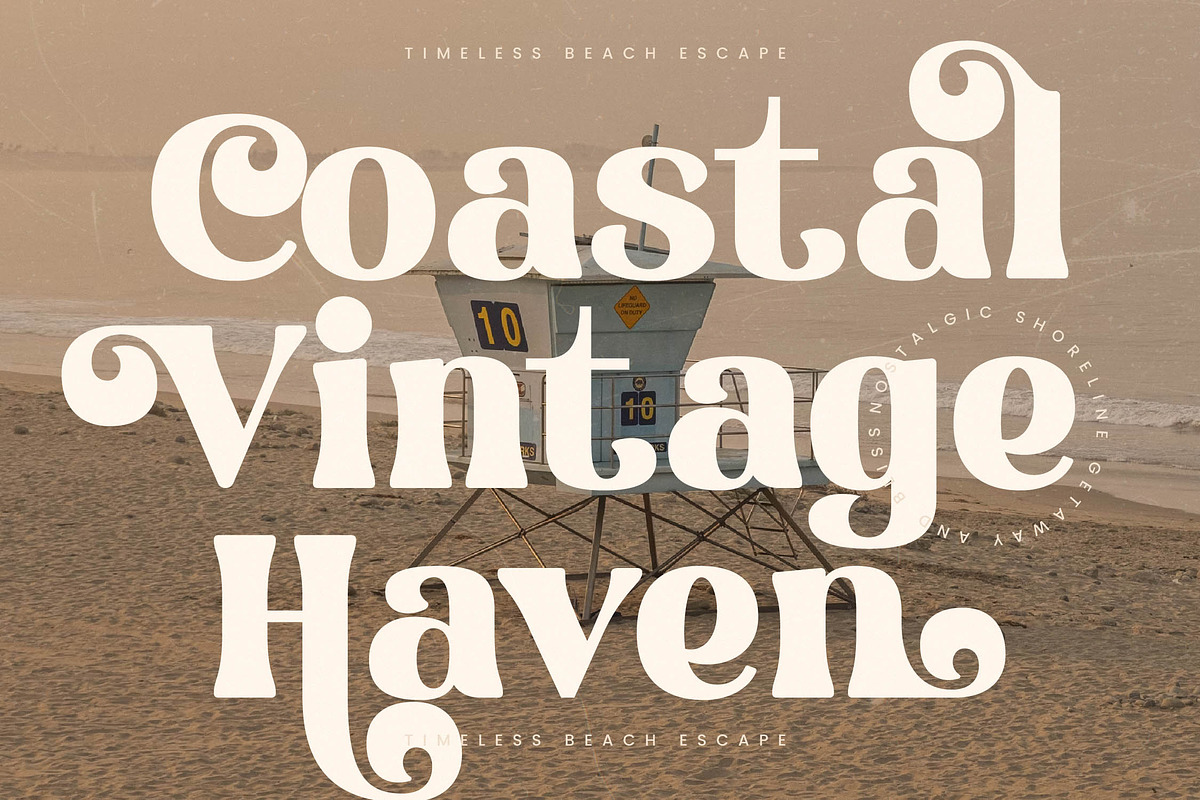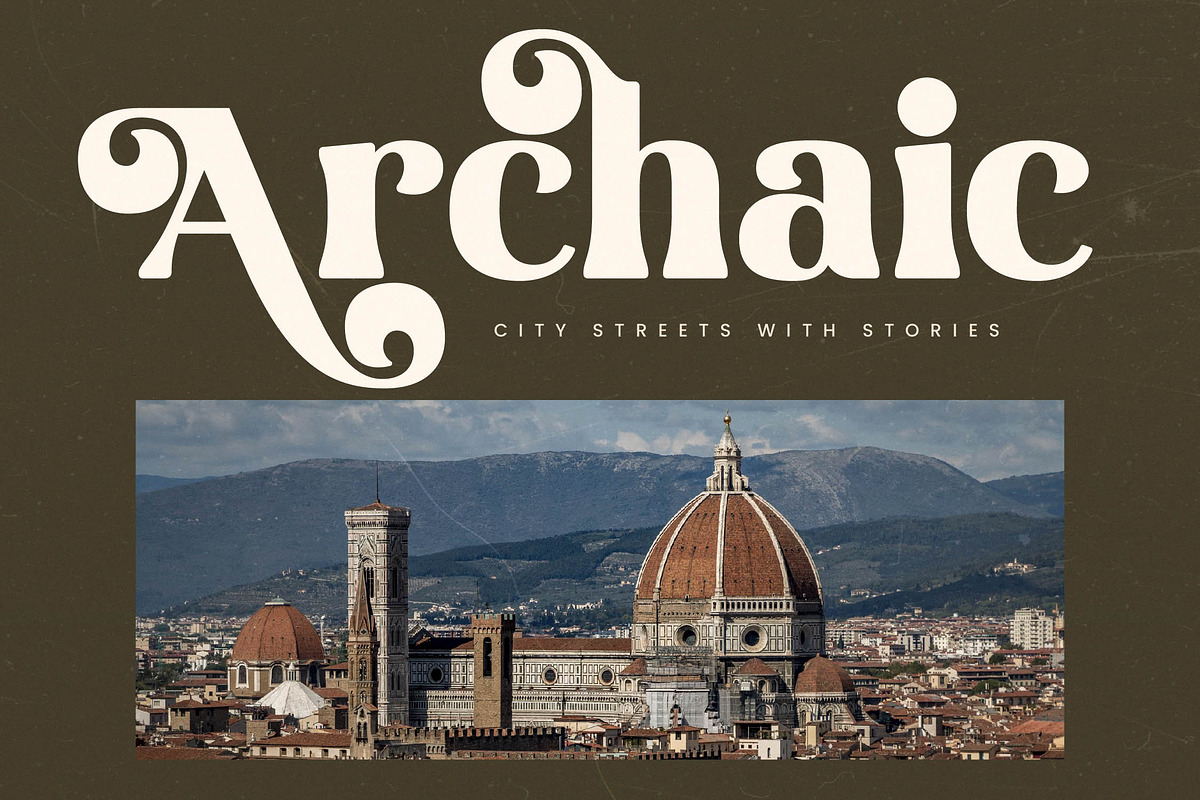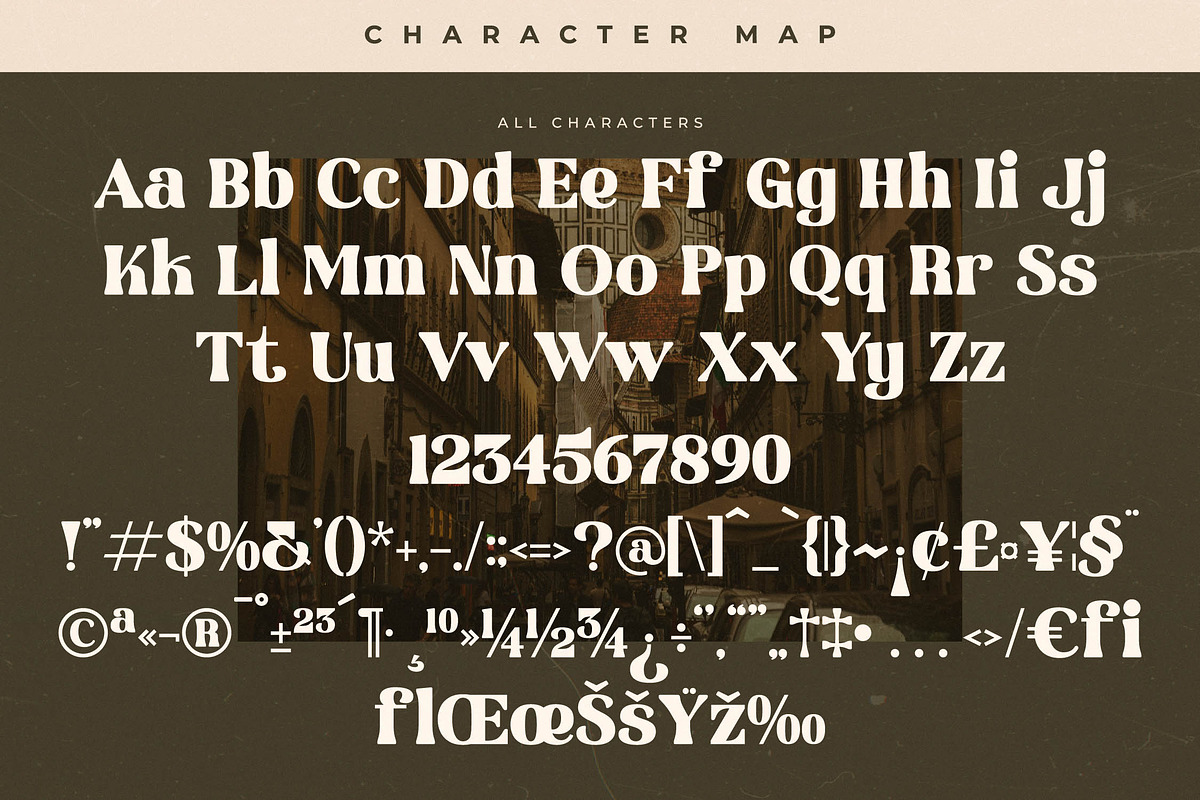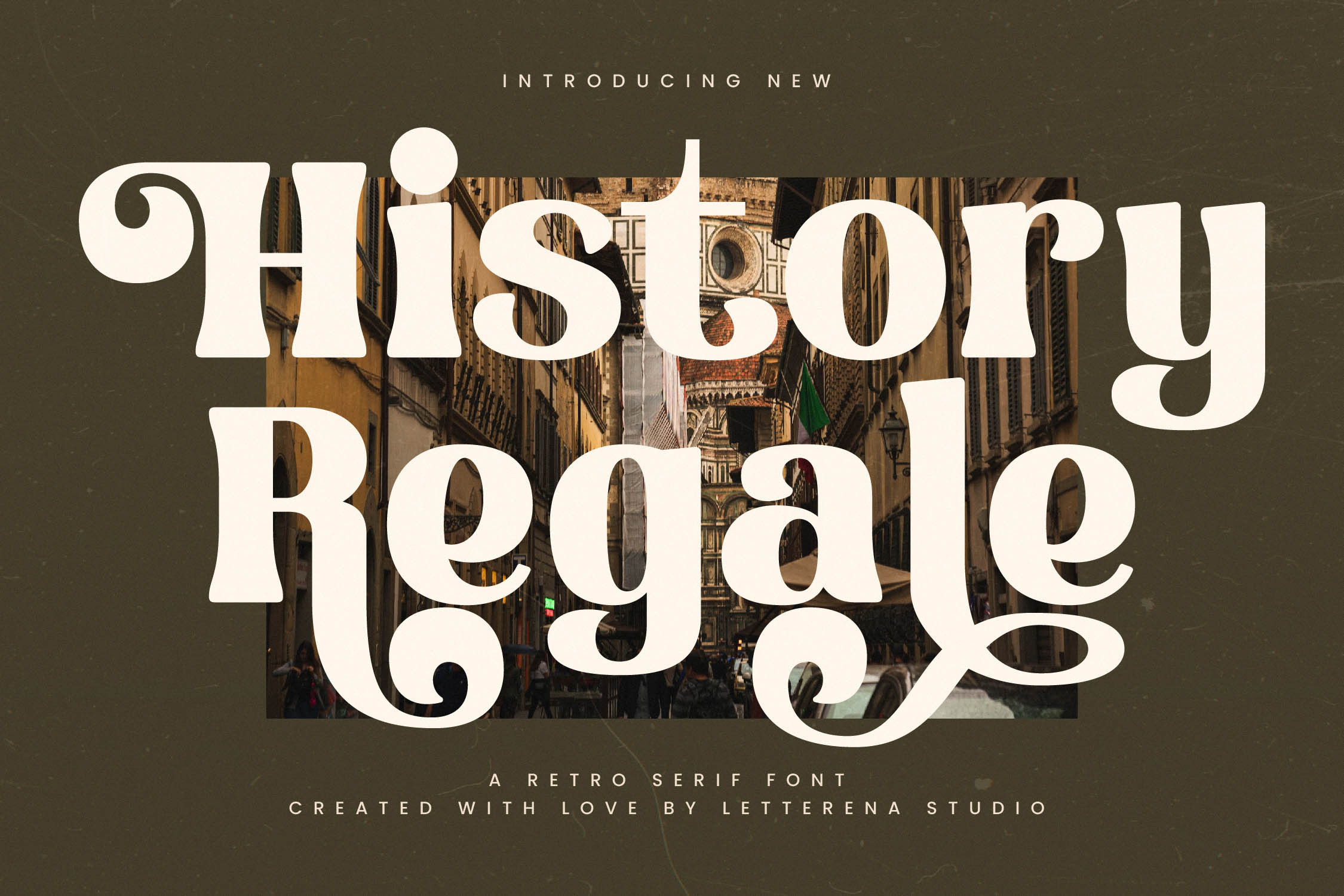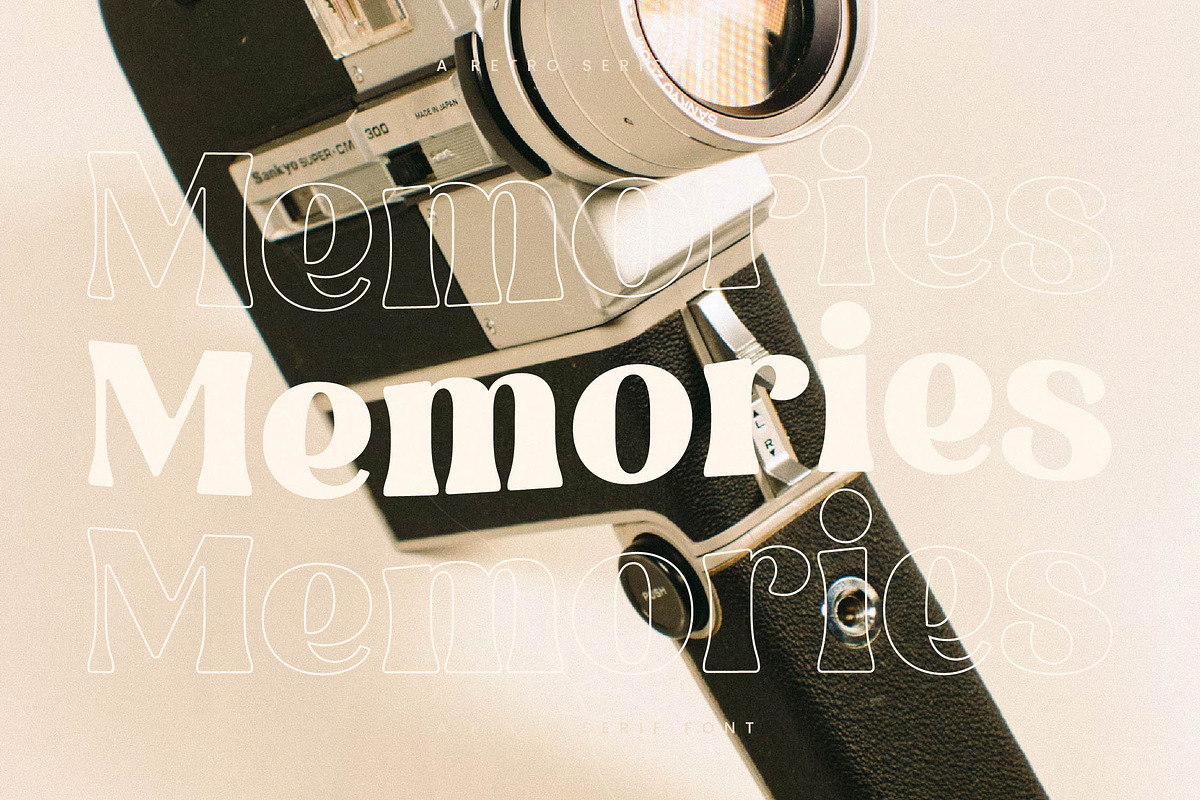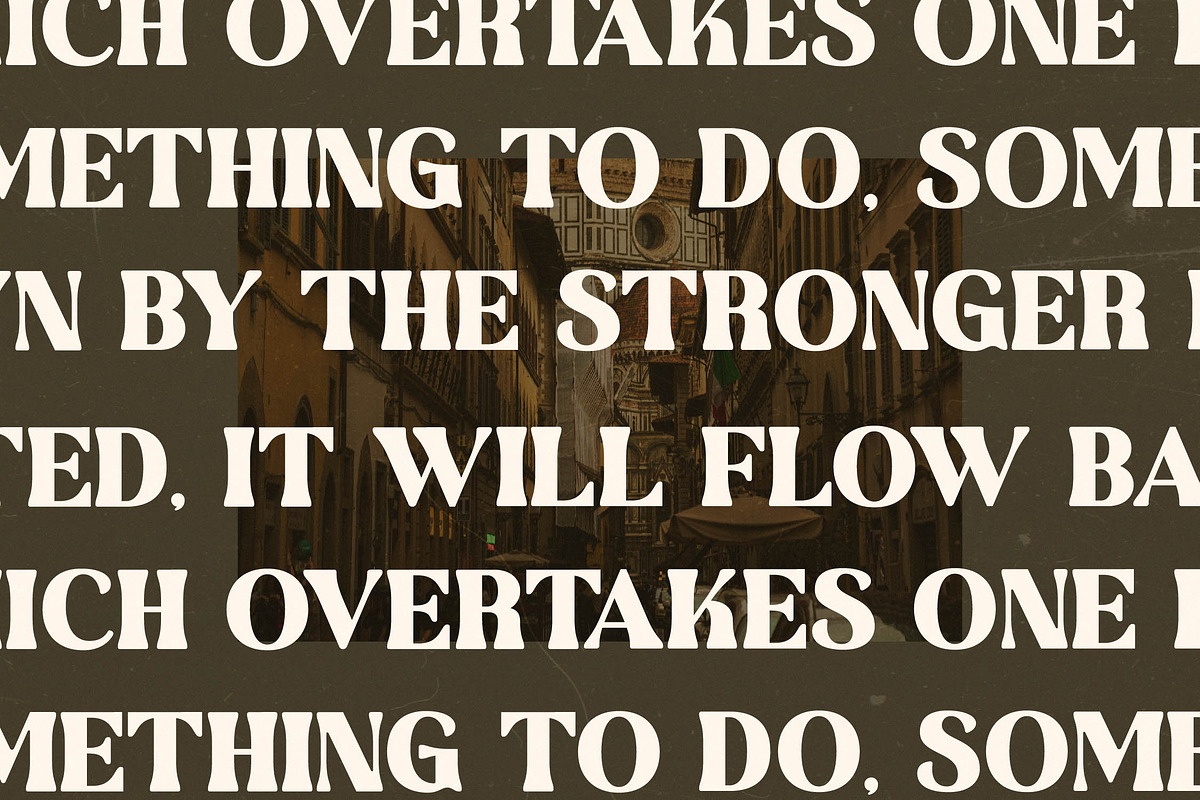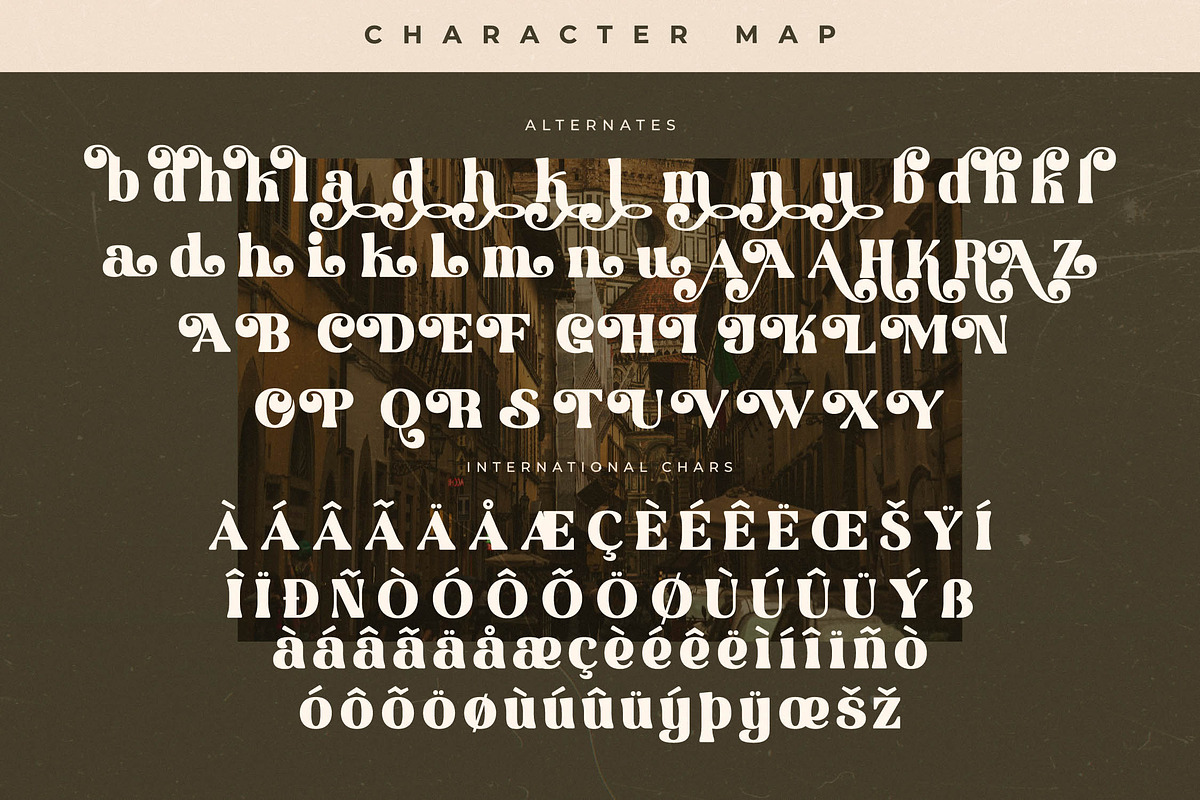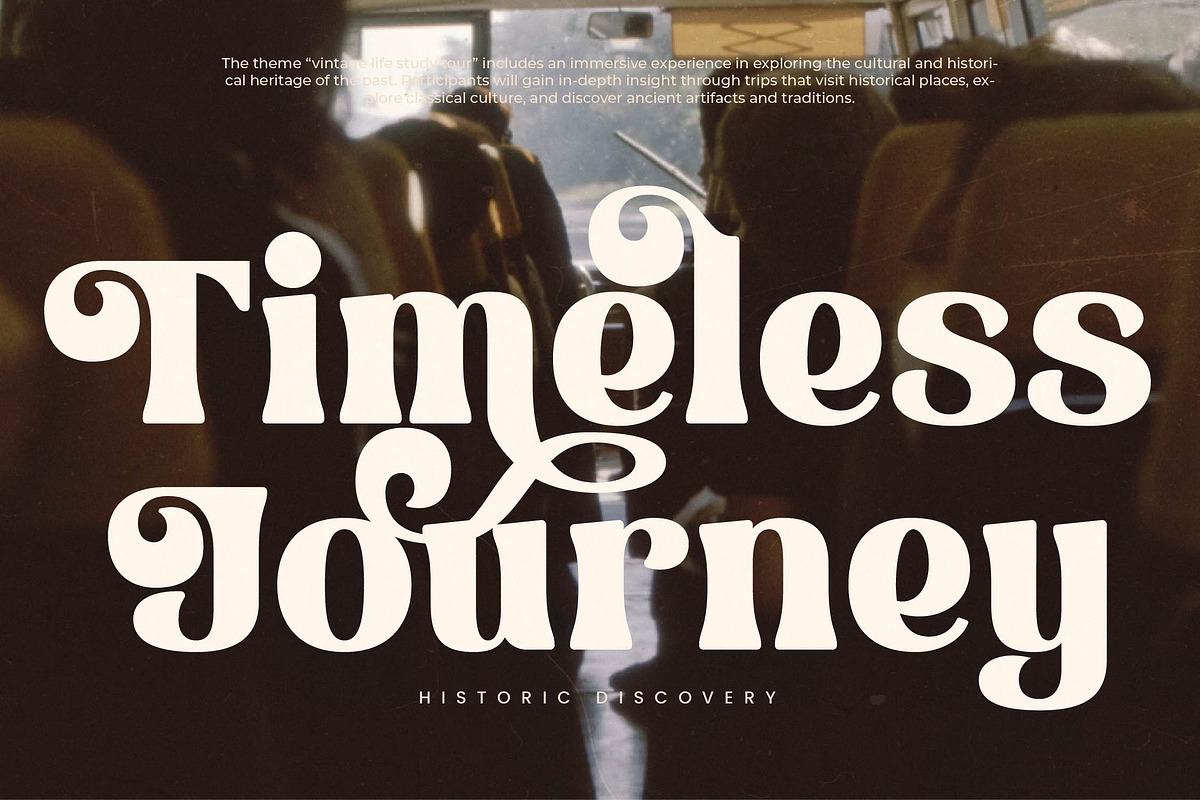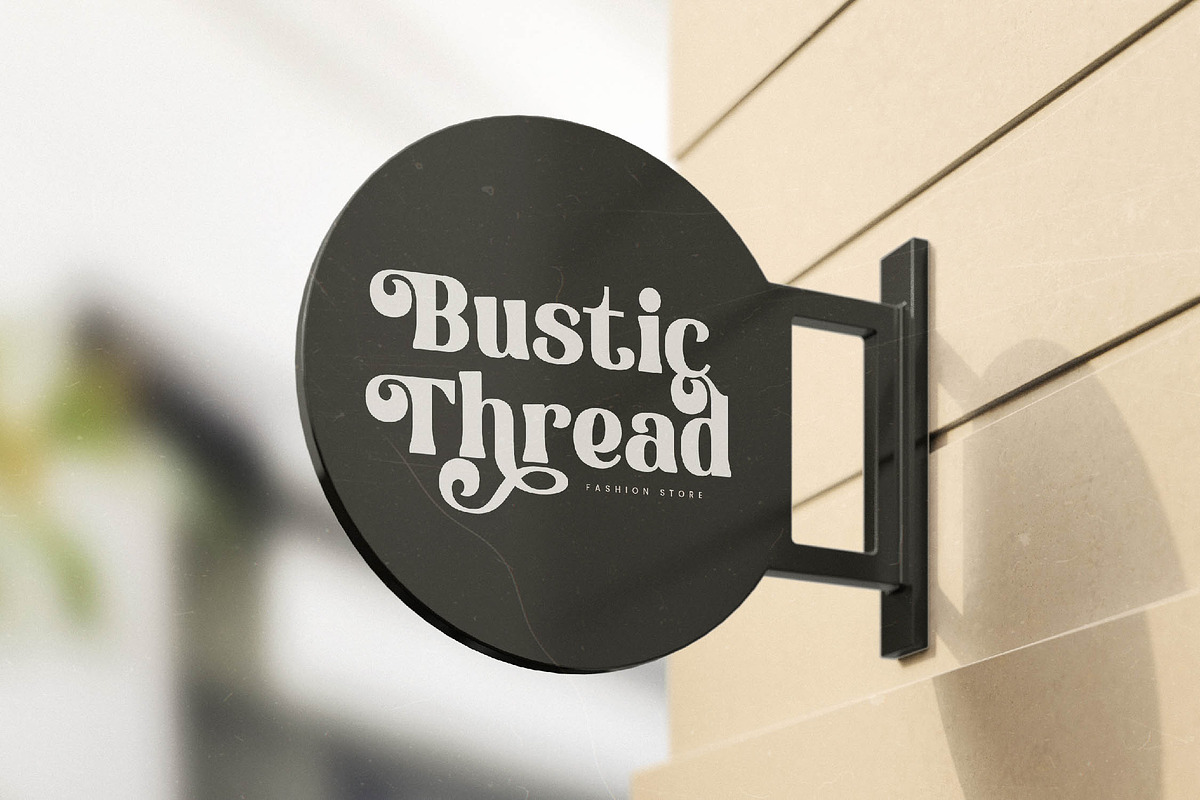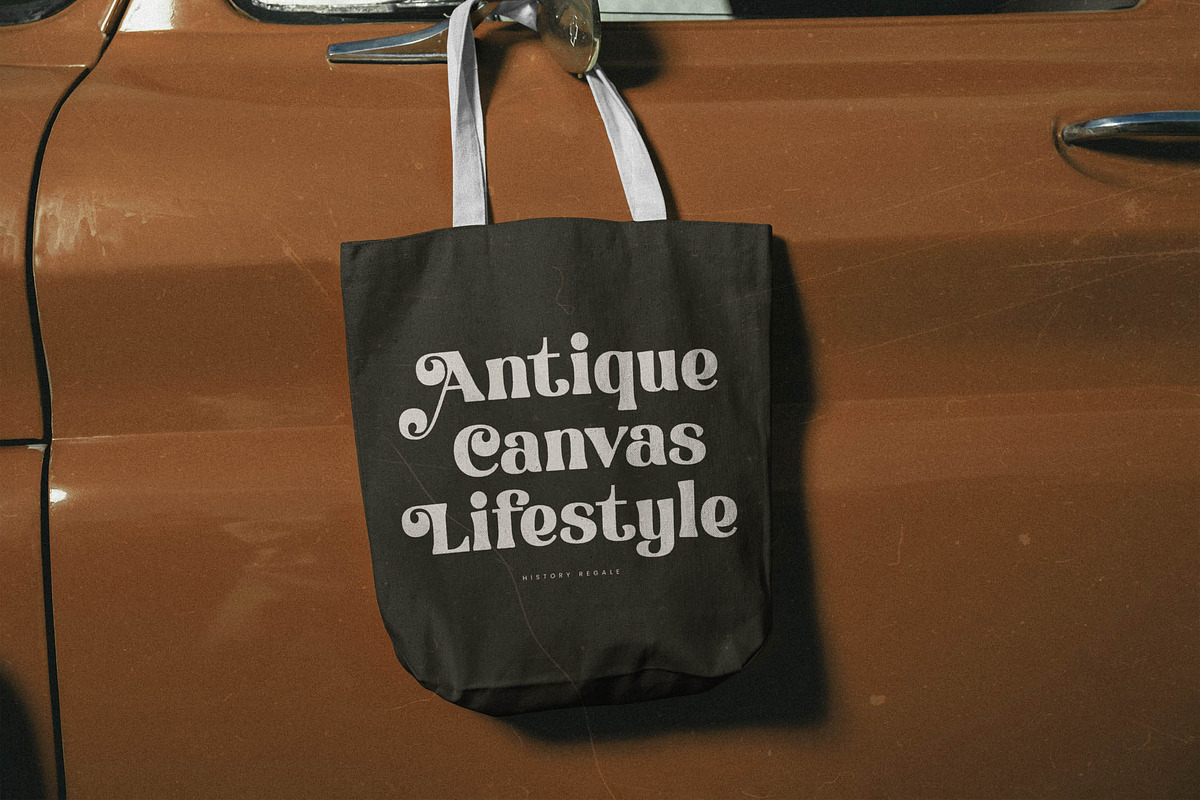
History Regale Retro Serif Font
History Regale – Retro Serif Font , from Letterena, is a Luxury Serif font, suitable for any projects such as: logos, branding projects, homeware designs, product packaging, mugs, quotes, posters, shopping bags, t-shirts, book covers, name card, invitation cards, greeting cards, label, photography, watermark, special events, and all your other luxury and beautiful projects that need a Luxury Serif taste.